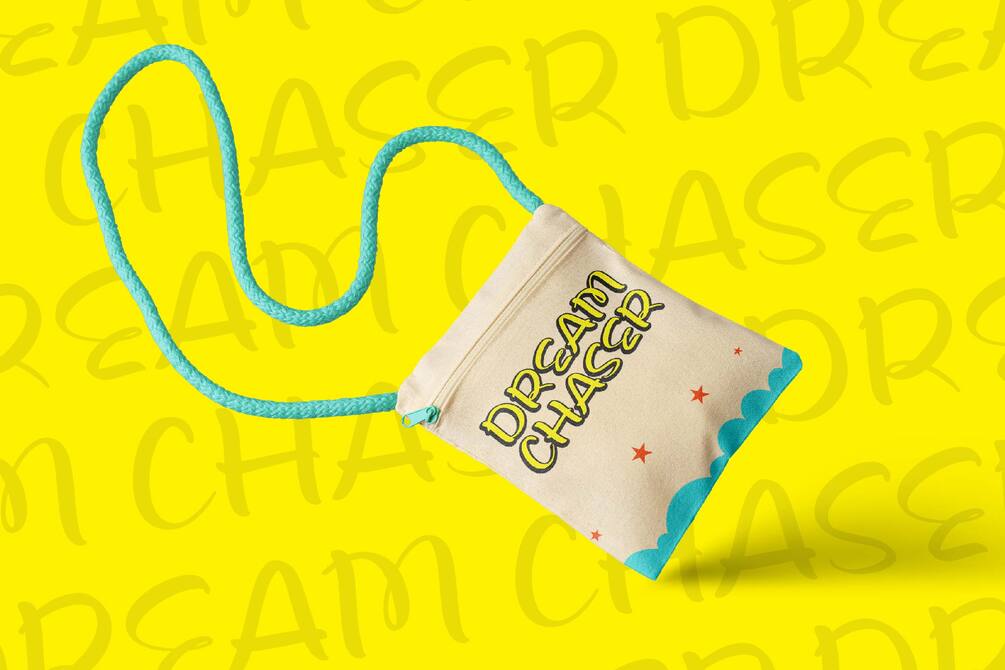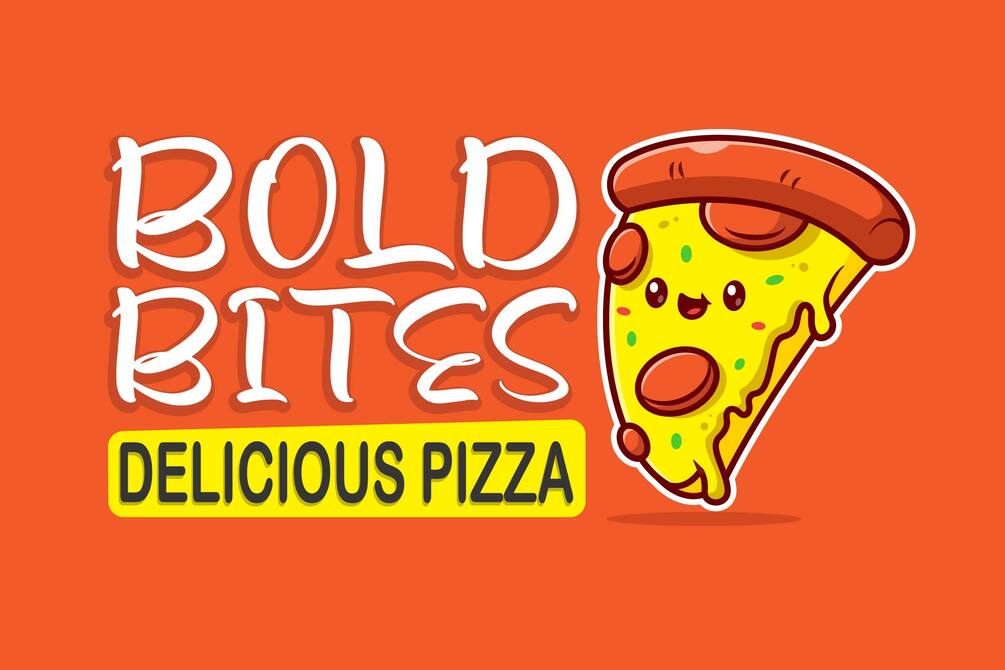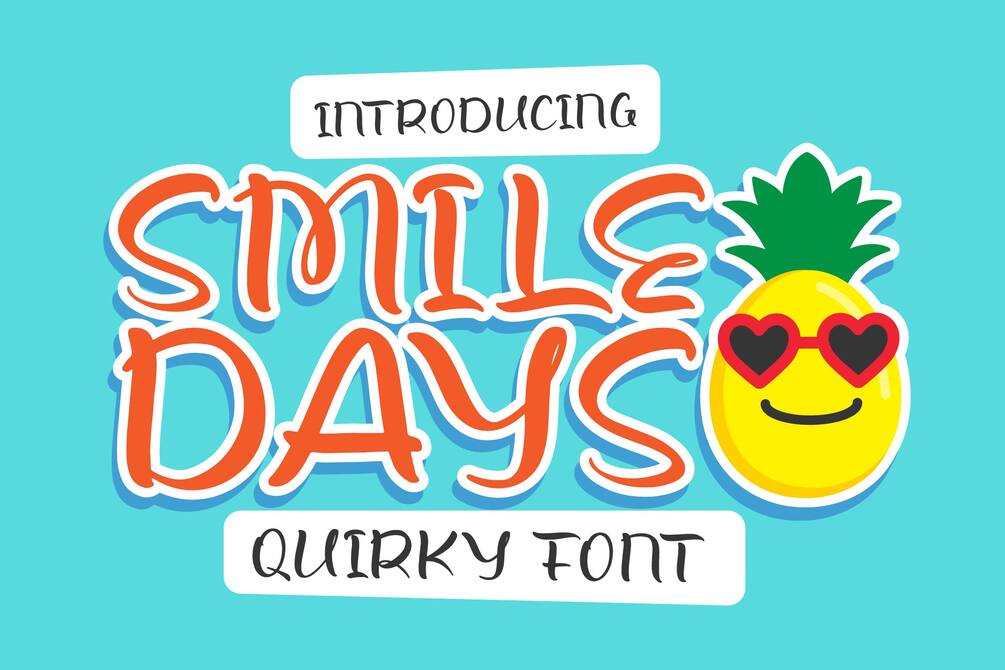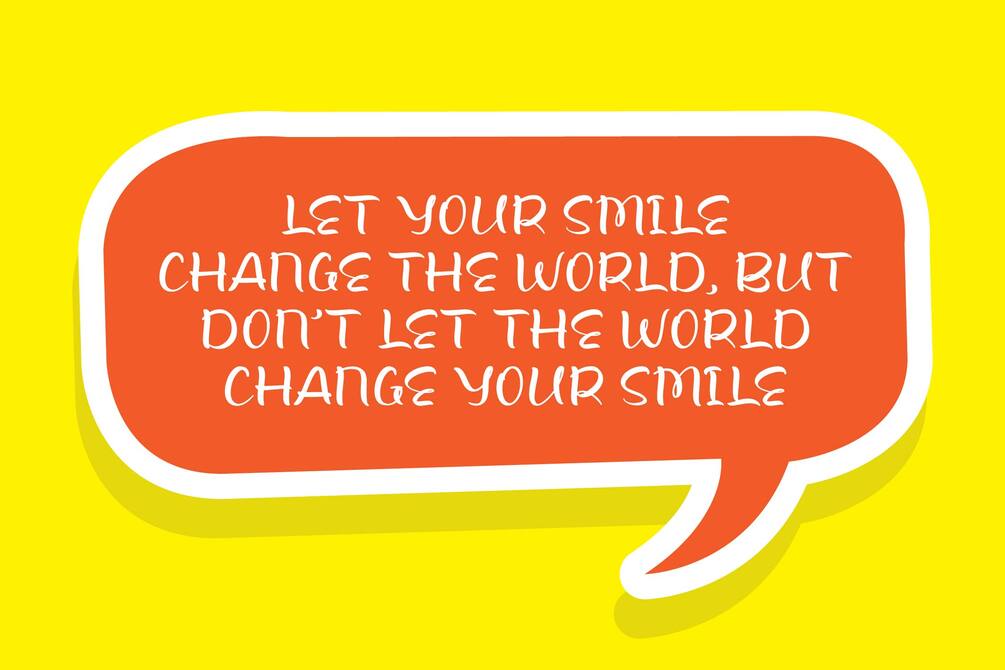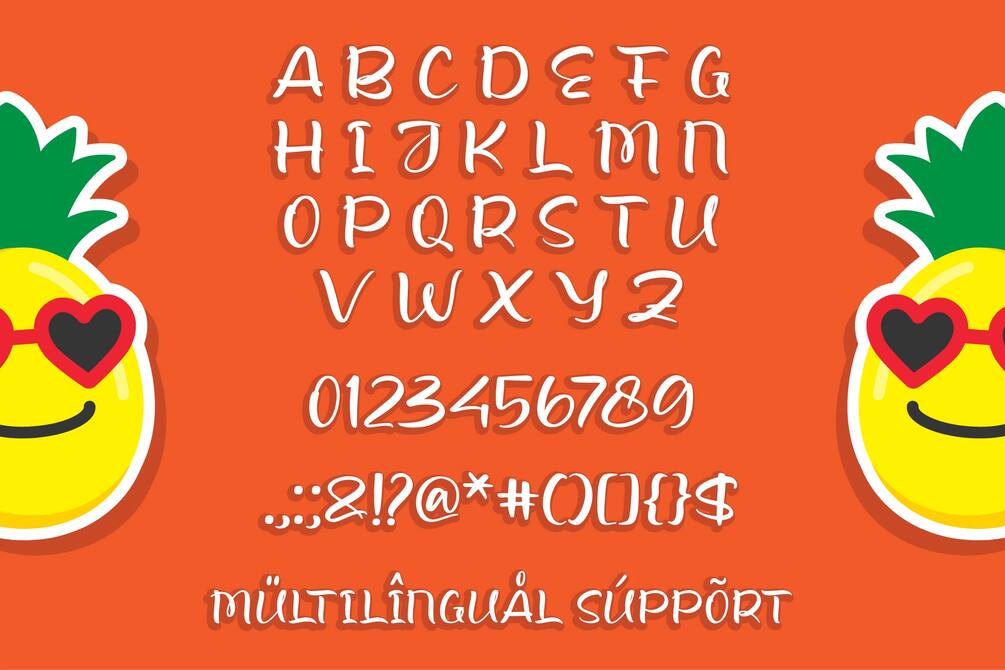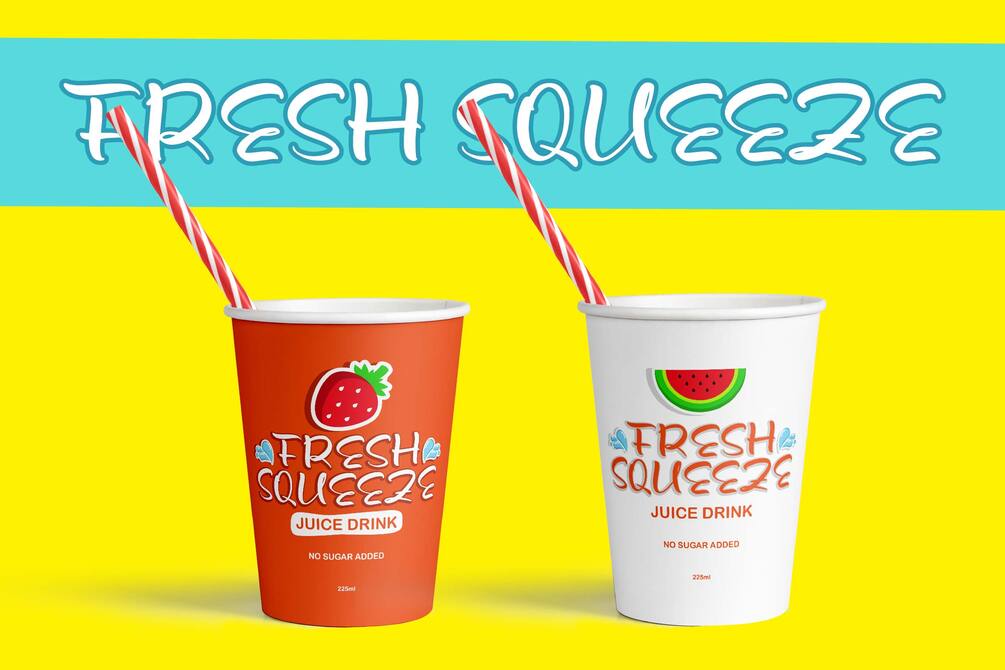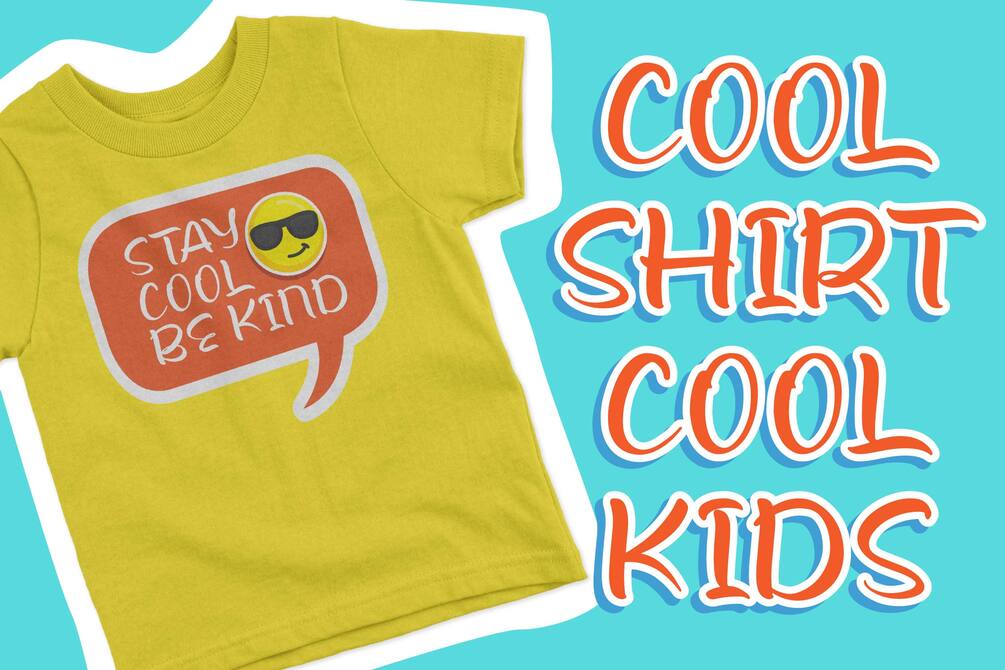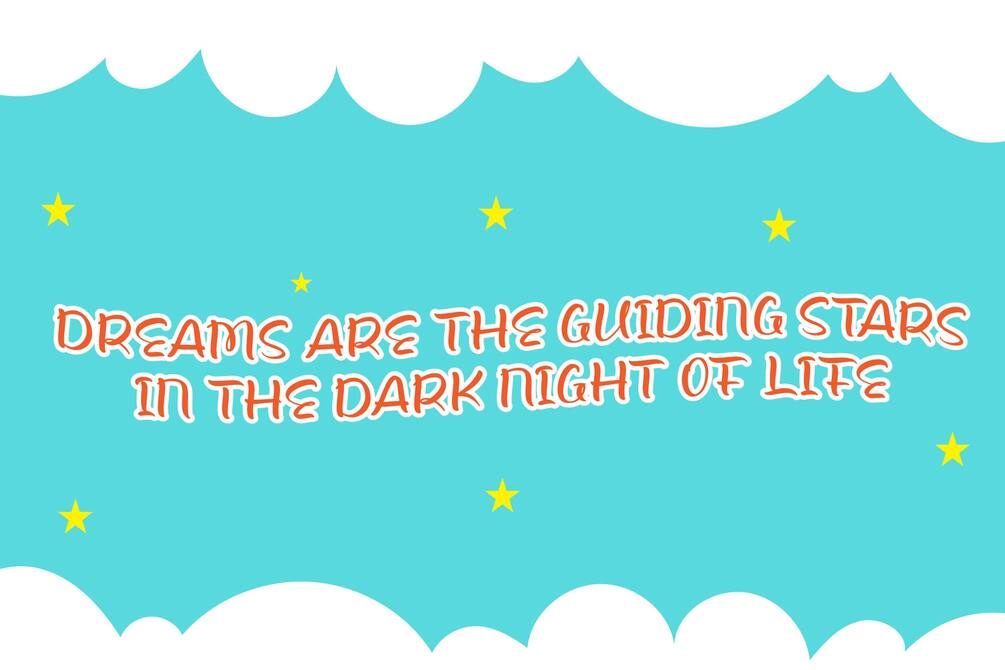
Smile Days - Quirky Font
Smile Days is a charmingly quirky typeface that adds a playful and whimsical element to any design. Its unique, irregular letterforms and friendly curves create a fun, light-hearted feel. Each character features distinctive details that make the font stand out and bring a smile to readers. Ideal for projects that require a touch of personality and cheerfulness, Smile Days is perfect for eye-catching designs and engaging visuals.